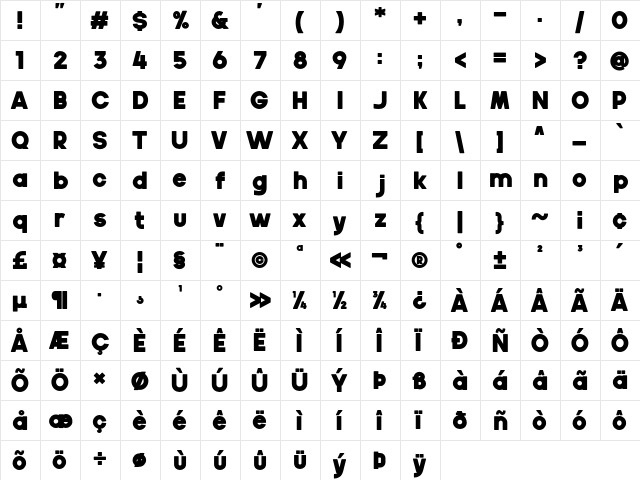
Gila Bold
| Foundry | Khurasan |
| Designer | Khurasan |
Design Context for Gila Typeface
Gila takes a measured approach to typography — its balanced proportions and neutral character make it a reliable workhorse for both digital and print work. Its bold stroke weight gives it real presence on the page.